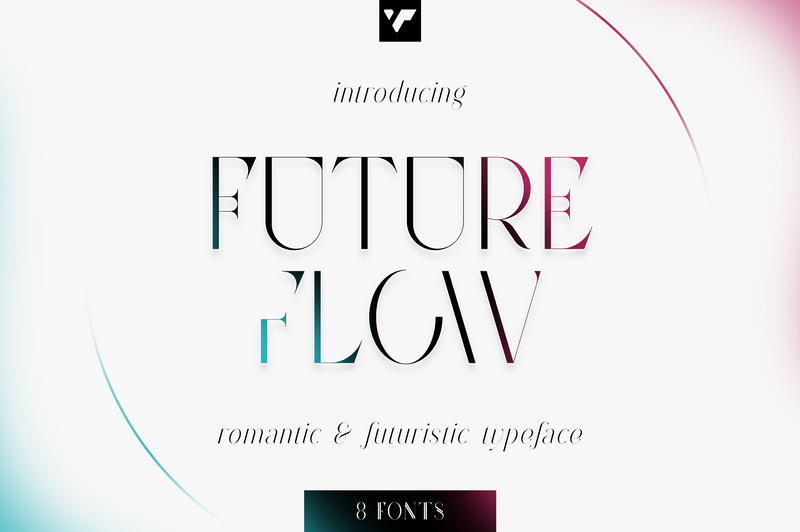
Introducing Future Flow typeface - 8 fonts
Looking for a font that combines classic elegance, romance, and a futuristic vibe? Look no further than Future Flow! This unique typeface offers eight distinct font styles, each with its own personality and flair. Plus, it's designed to support a whopping 87 different languages, making it a versatile choice for designers and creatives around the world. So whether you're creating a logo, designing a website, or crafting a marketing campaign, Future Flow has got you covered. Try it out today and see where its flowing curves and sleek lines can take you!